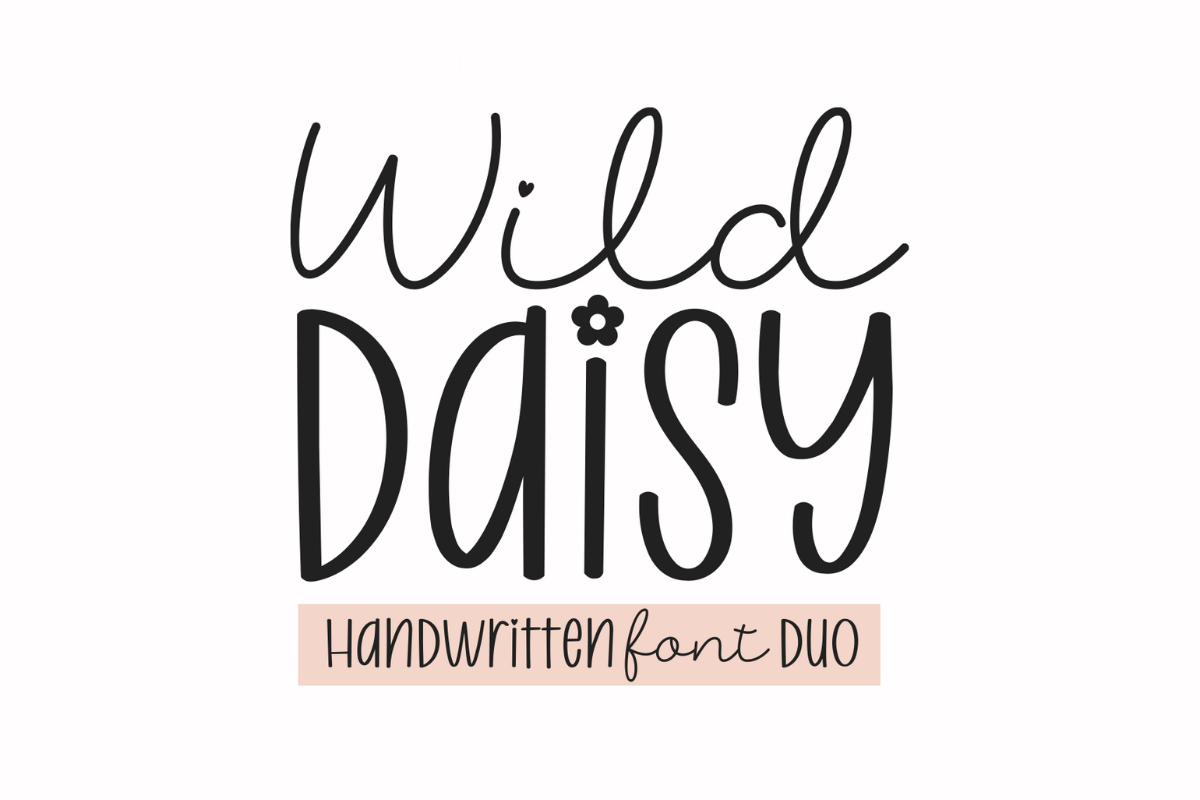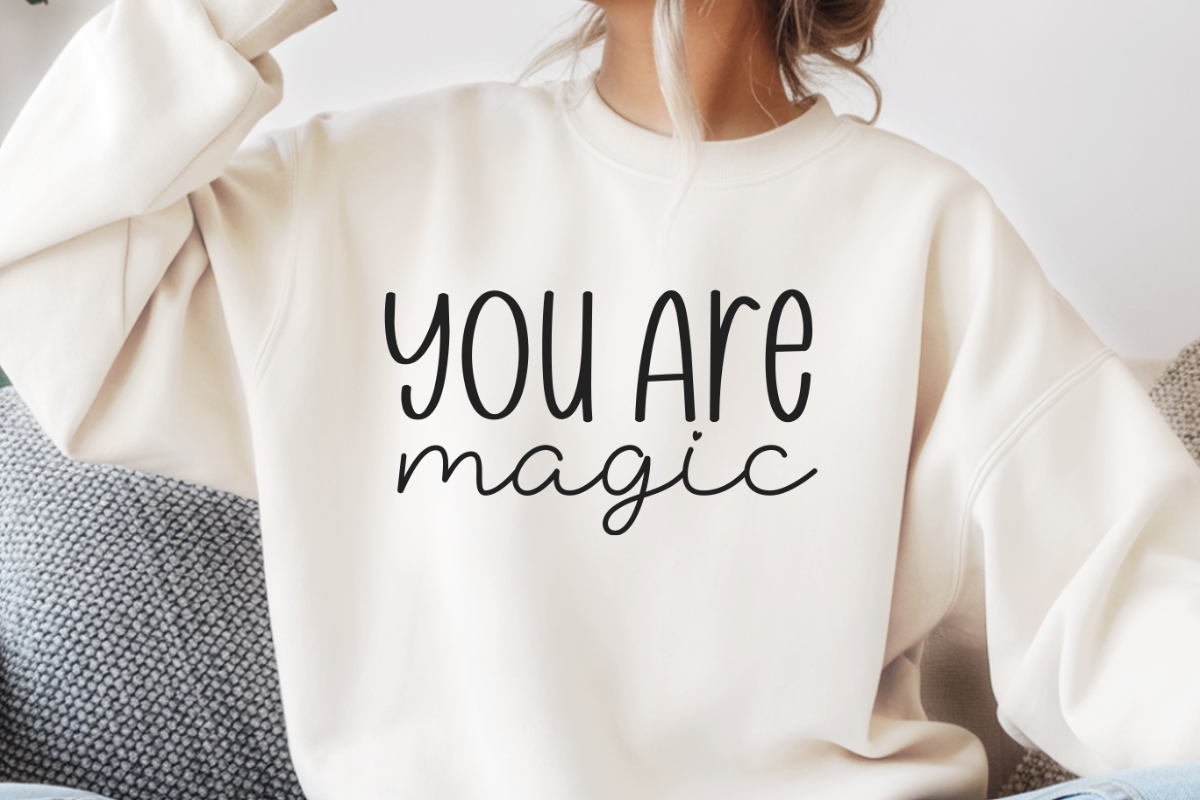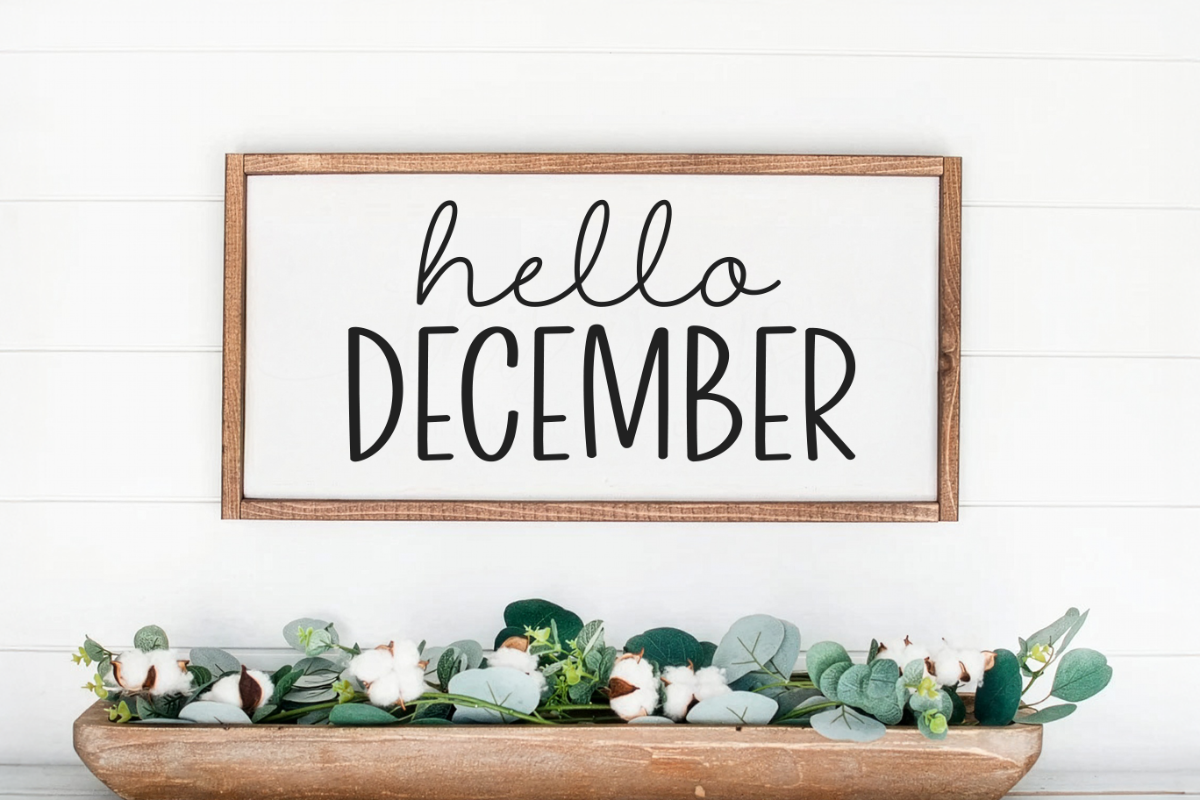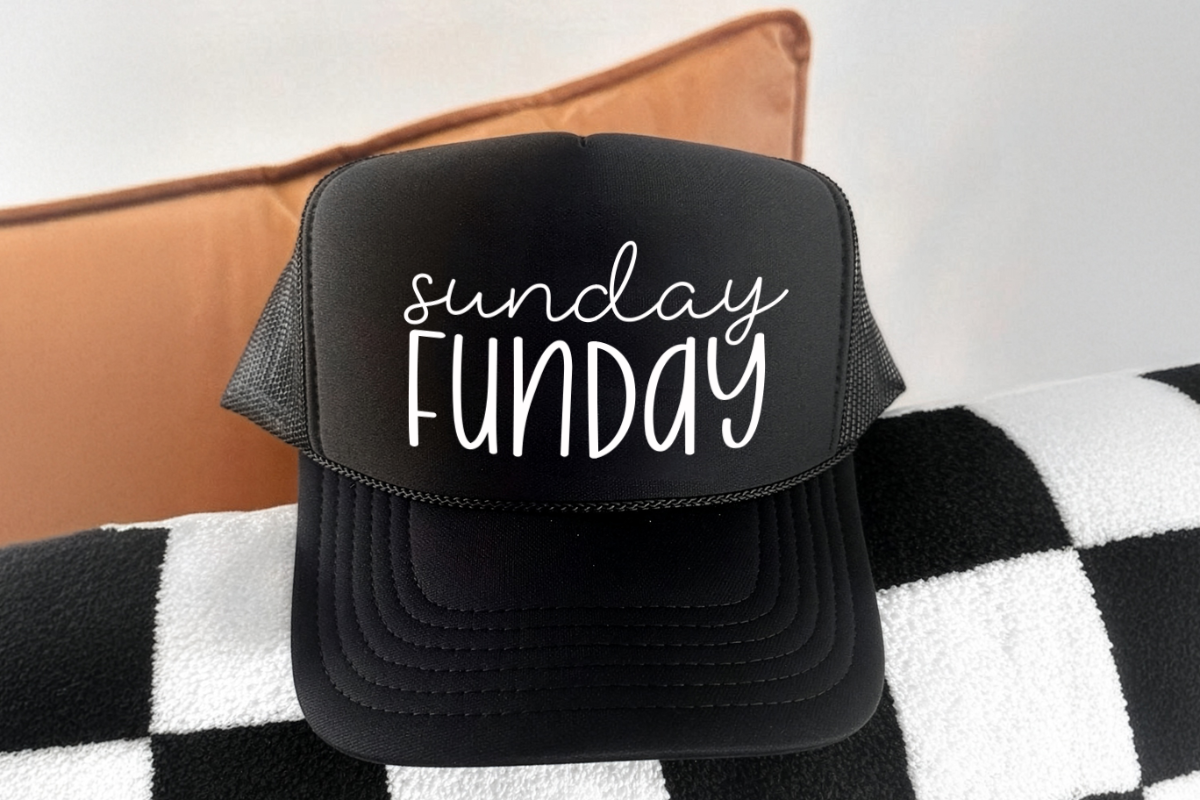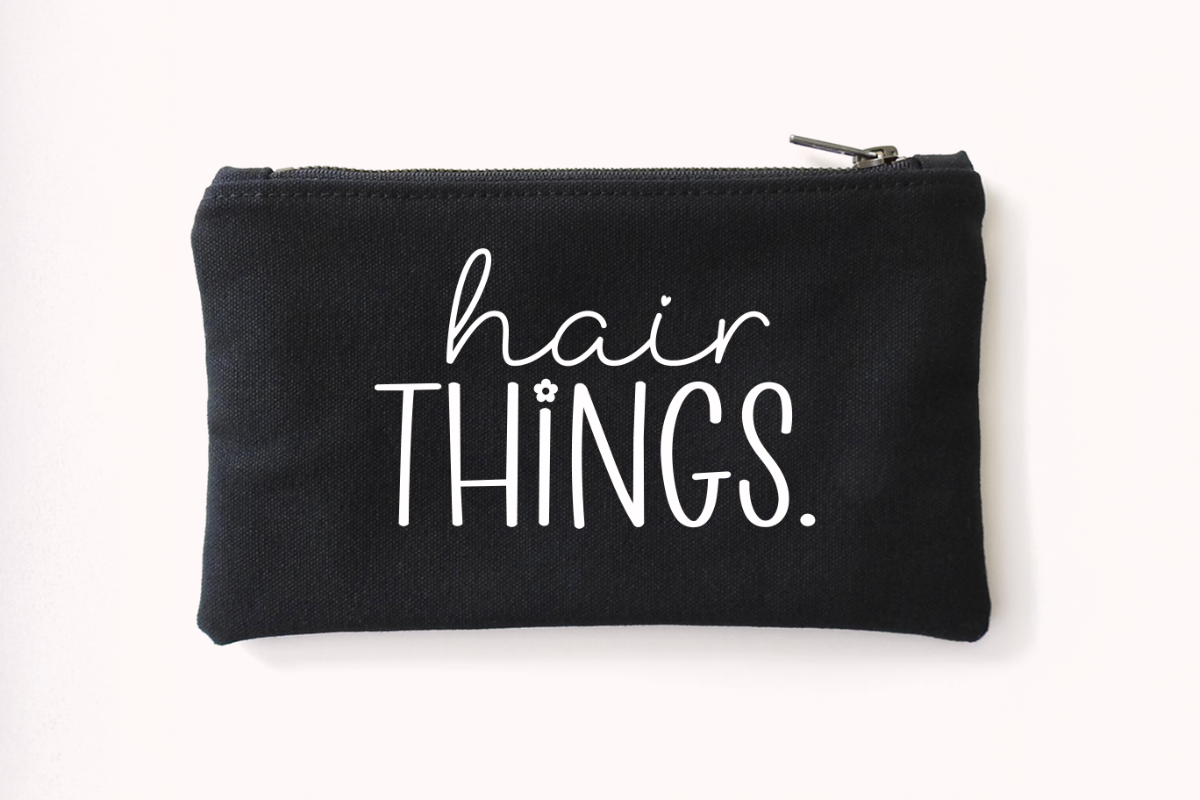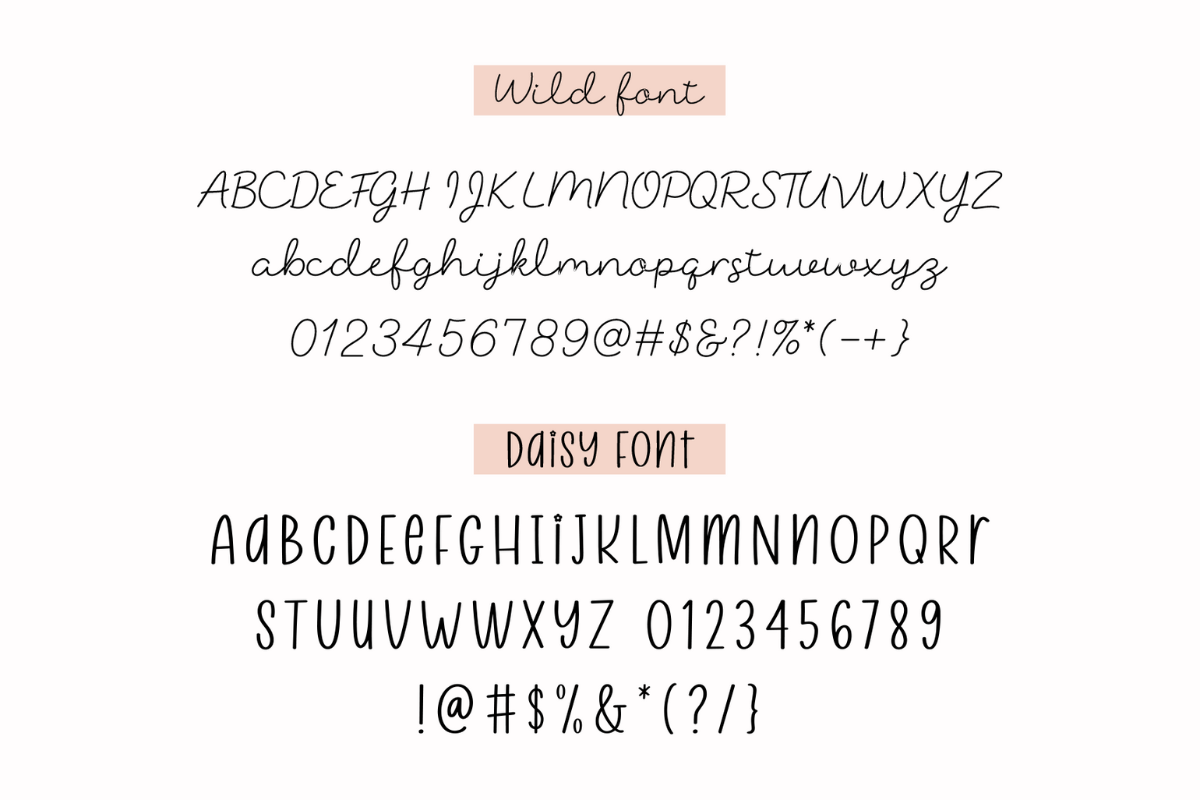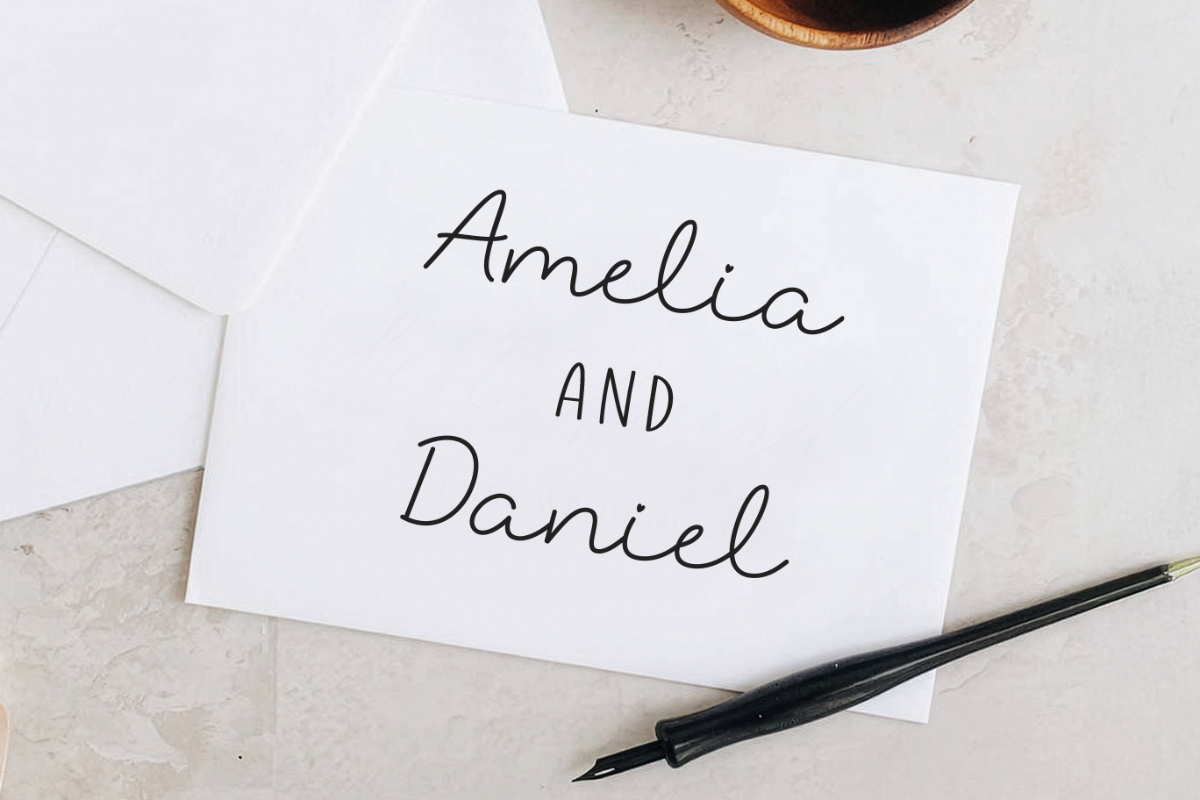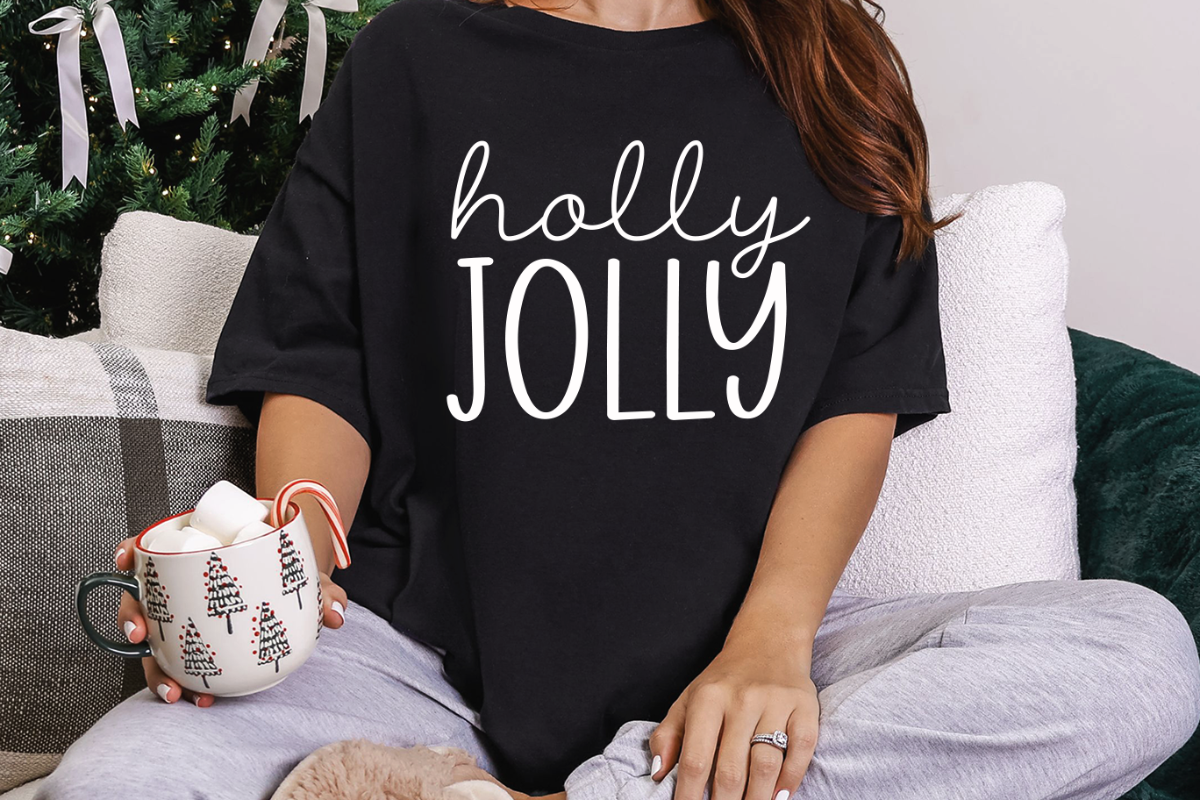
Wild Daisy -Script Monoline Font Duo
Wild Daisy is a modern, stylish, and flowing monoline script handwritten font duo. It has beautiful and well-balanced characters, and as a result, it matches a wide pool of designs. It is the best choice for creating eye-catching logos, branding, and quotes. Add it to your most creative ideas, and notice how it makes them come alive!